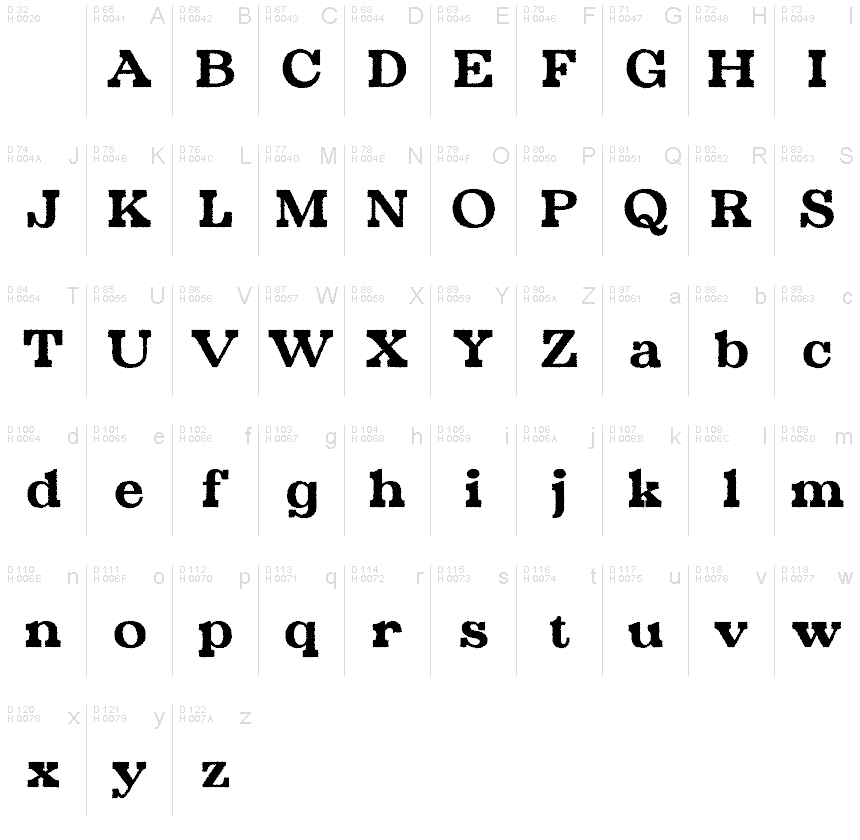
LunavieRough-Regular Demo
Lunavie Rough font is the work of Craft Supply Co. and a part of the Lunavie typeface family. Its bold, expanded style presents all characteristics of vintage-inspired items beautifully, with serifs on letters and textured rough edges. It carries an antique appearance suitable for any design that needs a distressed look.
This free serif font can be used for greeting card designs, posters, branding purposes, social media design, logo creation, and book covers. Both business identity elements and packaging label printing are among its popular suggested uses as well. The available texture also goes well on concert tickets and other printed material where slight aging is required.